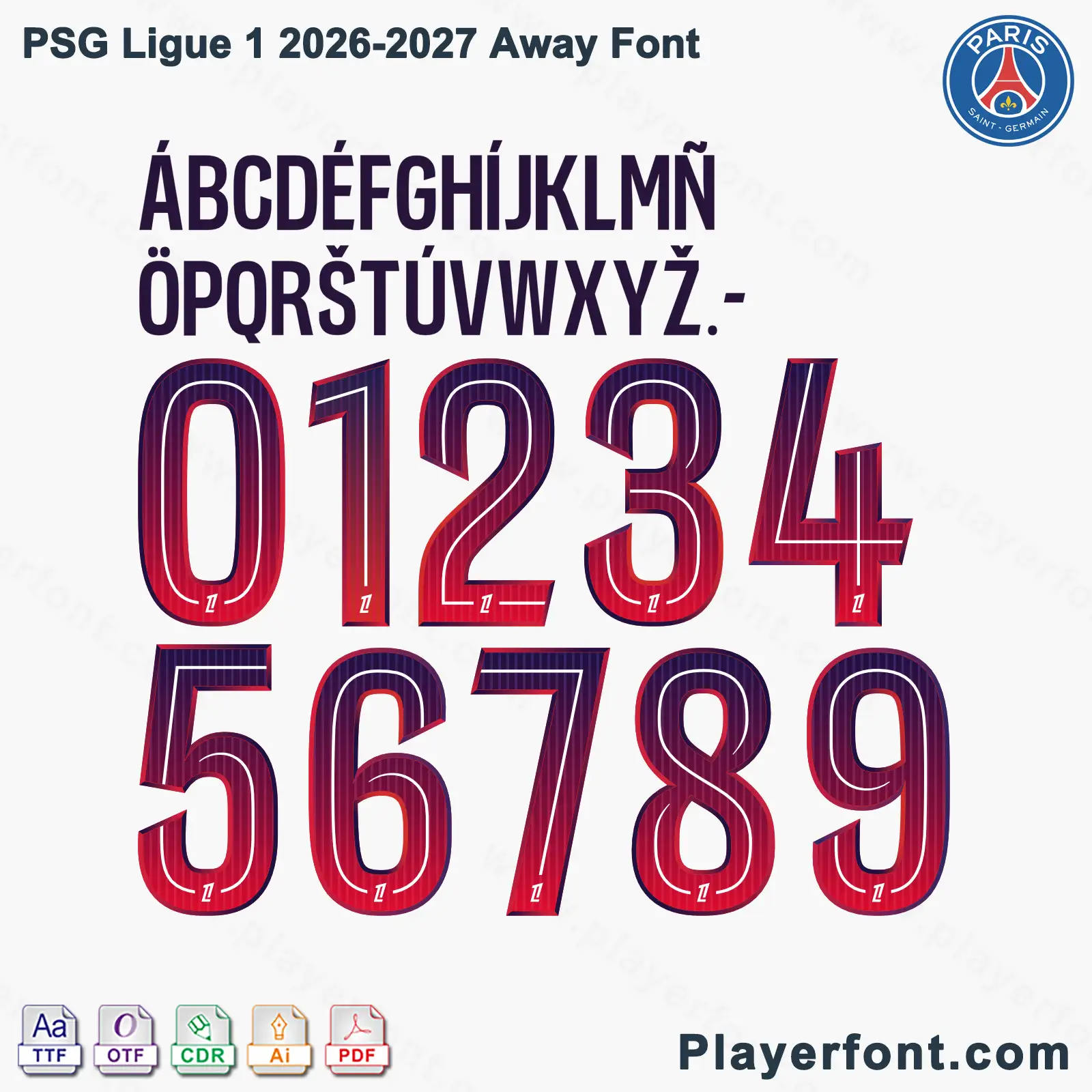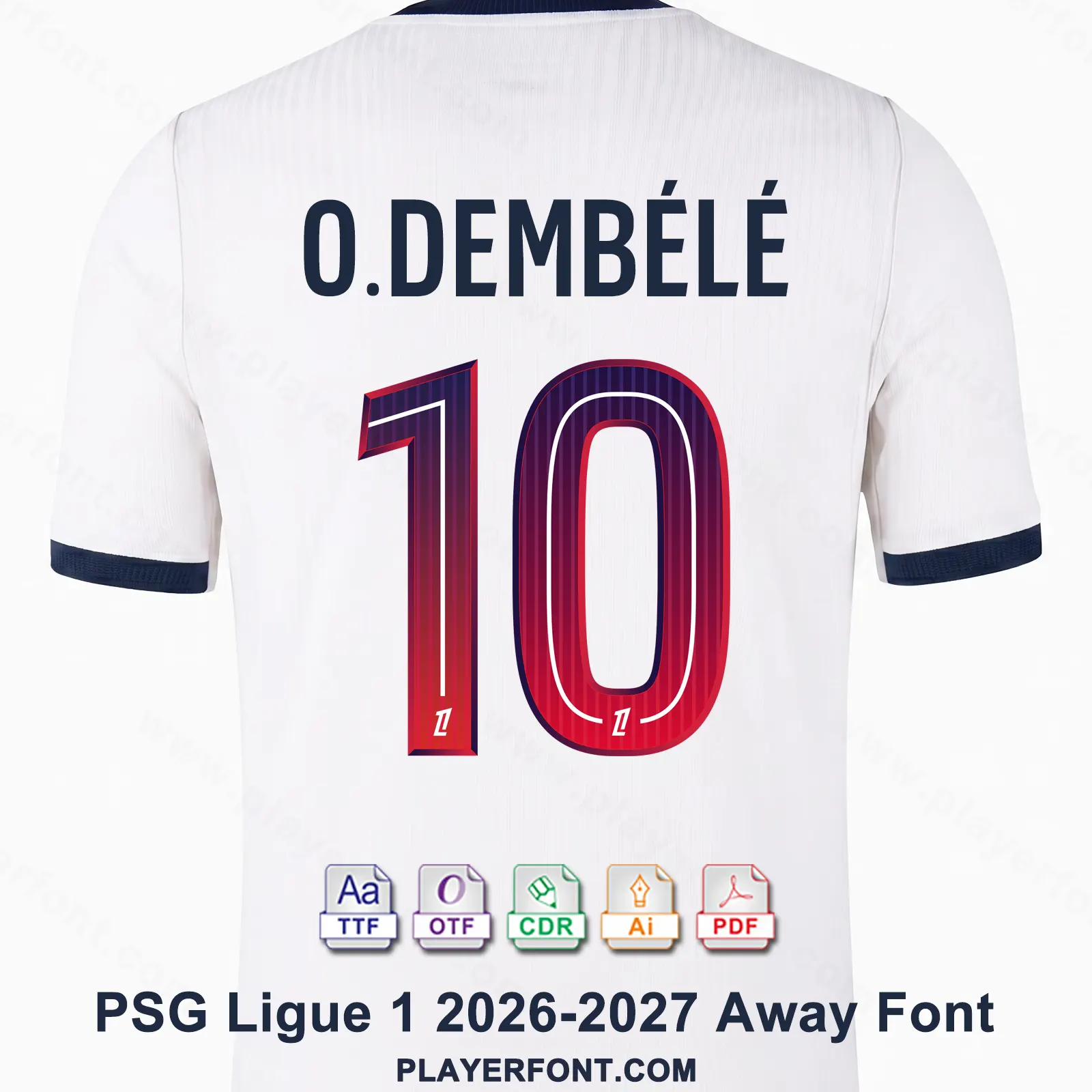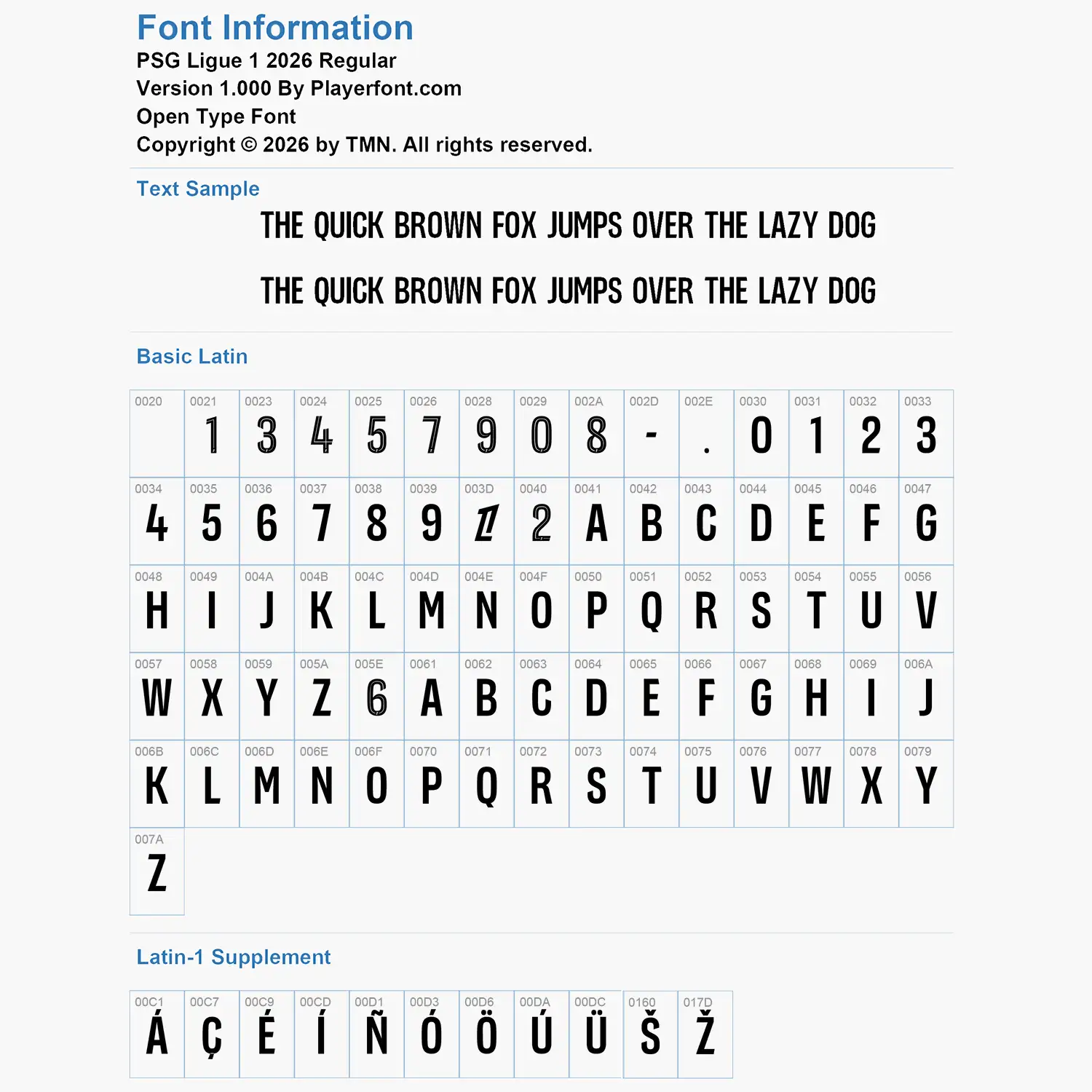
Elevate your sports jersey mockups, football custom graphics, and vector apparel printing projects with the high-quality PSG Ligue 1 2026-2027 Away Font Download. Masterfully engineered by Playerfont.com, this high-performance typography set replicates the official-style league numbers and distinct lettering featured on the pitch for Paris Saint-Germain’s domestic French campaigns.
Key Typography Features & Character List:
This typography pack is fully optimized to support international player rosters and diverse numbering layouts:
- Official League Modern Layout: Contains the sleek, tall condensed sans-serif uppercase character set required for French league compliance, featuring numbers (0-9), hyphens, and periods.
- Advanced International Accent Support: Includes an essential set of diacritics spanning Latin-1 Supplement (such as Á, Ç, É, Í, Ñ, Ó, Ö, Ú, Ü, Š, and Ž) ensuring flawless rendering for global football stars and specific French naming requirements (such as O. Dembélé, etc.).
- Authentic Visual Details: The jersey numbers feature an artistic red-to-dark-navy vertical line gradient texturing, wrapped in a bold white inline split border with the official French Ligue 1 LFP league crest silhouette subtly embedded at the base of each digit.
| Design Feature | Vertical Pinstripe Gradient Texture with White Inline & LFP Crest Base |